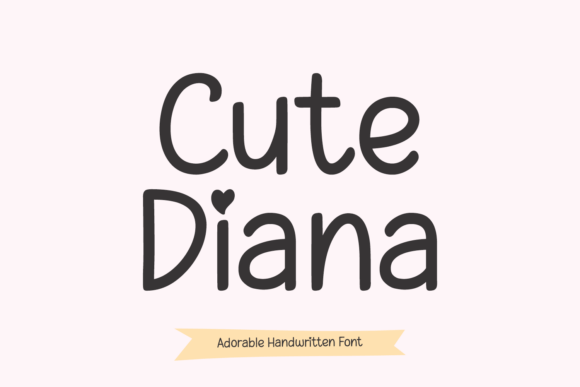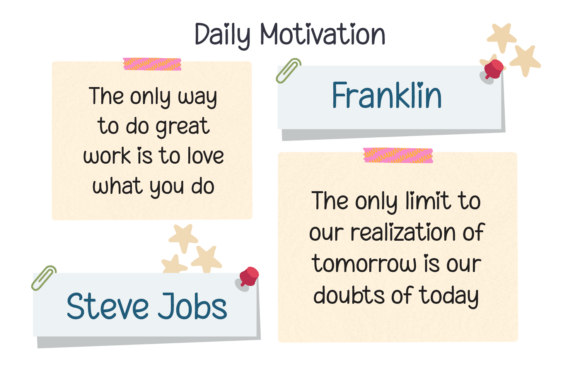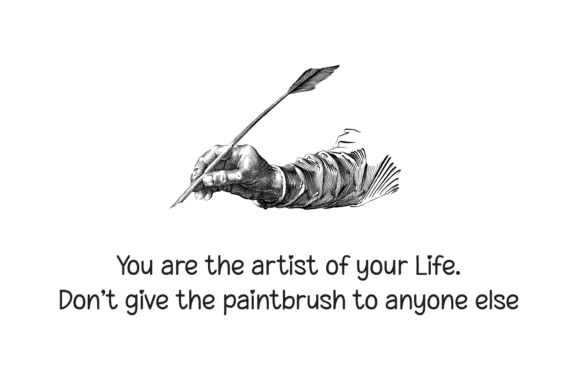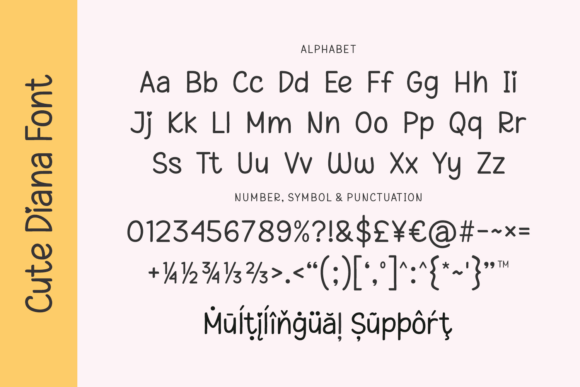
Cute Diana Font
About the Cute Diana Font
Elevate your designs with Cute Diana Font, a font that combines sophistication with readability. Cute Diana is a charming and playful handwritten font with a sweet, whimsical touch. Perfect for invitations, greeting cards, and creative projects, it exudes warmth and friendliness. Its smooth curves and casual style make it ideal for adding a personal, heartfelt feel.
Cute Diana’s playful nature makes it a strong choice for branding projects targeting younger demographics or businesses emphasizing warmth and approachability, such as bakeries, children’s boutiques, or craft businesses. It works exceptionally well in headlines, short quotes, and logos, adding a touch of personality to packaging and social media graphics. However, its handwritten style is less suitable for body text or UI elements where readability is paramount. Avoid using it in lengthy paragraphs or situations requiring high levels of professionalism.
Pairing Cute Diana with a clean sans-serif like Montserrat or a more geometric sans-serif such as Futura provides a strong contrast, balancing its whimsical energy with a touch of modern sophistication. For a more vintage feel, consider pairing it with a serif font like Playfair Display.
Cute Diana’s overall personality is undeniably friendly and approachable, though its charm is best utilized in considered applications to prevent it from appearing cluttered or overwhelming.
Cute Diana Font Usage Examples
Cute Diana Font Example